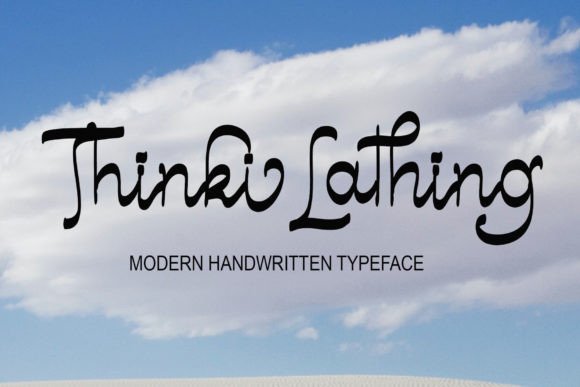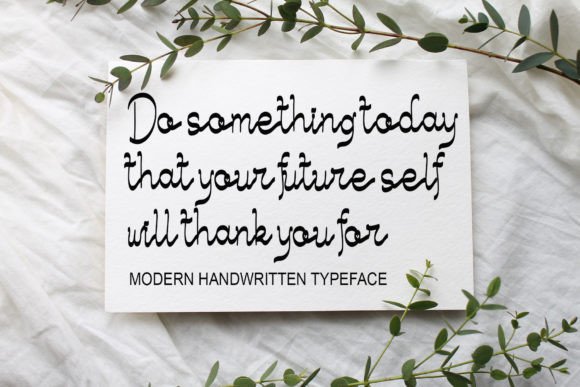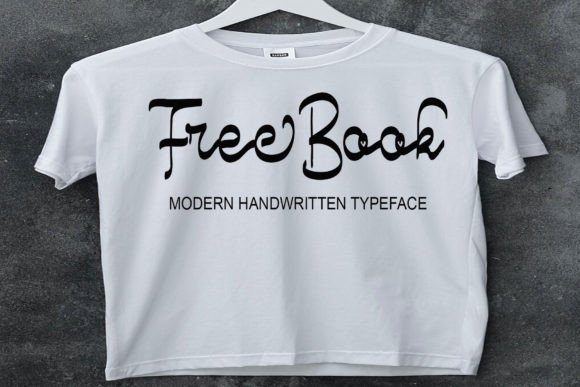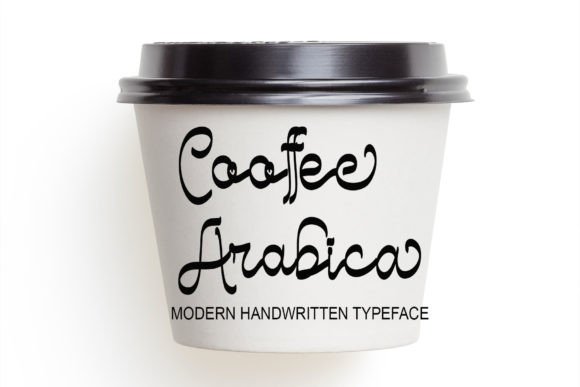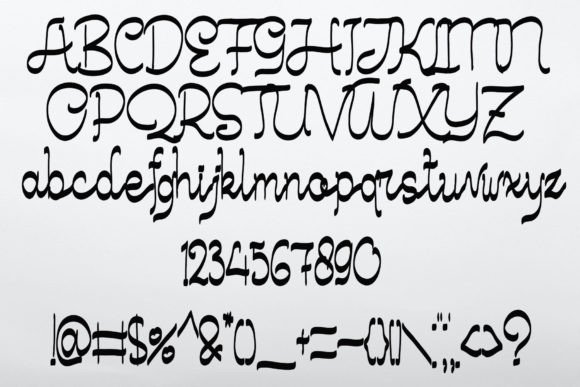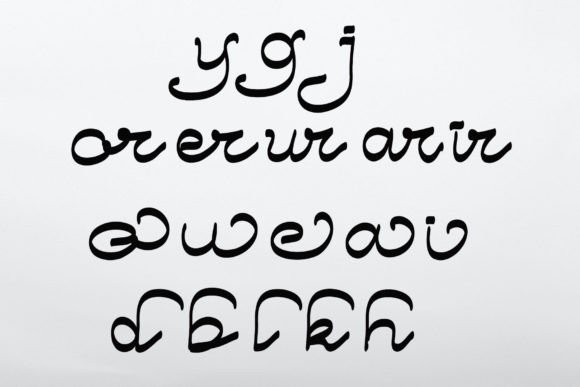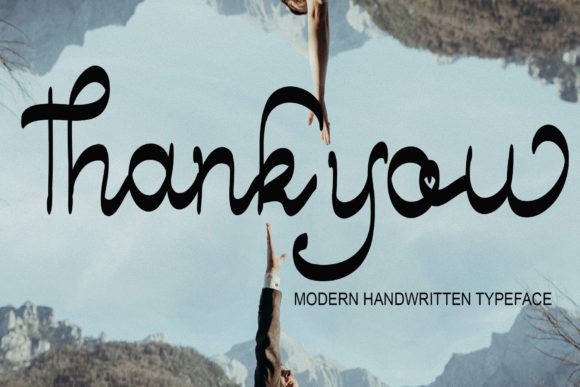
Thinki Lathing Font
About Thinki Lathing Font
Thinki Lathingfont is a handwritten typeface created with a tablet, combining simplicity and style. When you download Thinki Lathingfont, you get a versatile design tool that perfectly suits a variety of creative projects. Its clean, minimalistic look makes it ideal for those seeking an authentic handwritten feel without unnecessary complexity.
This font stands out because it balances simplicity with elegance. Downloading Thinki Lathingfont gives you access to a typeface that works well for both digital and print applications. It adds a personal, handcrafted touch to your projects while maintaining a professional vibe.
Perfect for Multiple Applications
Thinki Lathingfont fits beautifully on websites, wedding invitations, business cards, and personal signatures. It also suits product advertisements and other promotional materials. Download this font to enhance your designs with a natural, stylish handwritten look that grabs attention.
Stylish Yet Simple Design
Though simple, Thinki Lathingfont doesn’t compromise on style. Its clean lines and subtle details make it visually appealing and easy to read. Downloading Thinki Lathingfont will help you create projects that feel both modern and approachable.